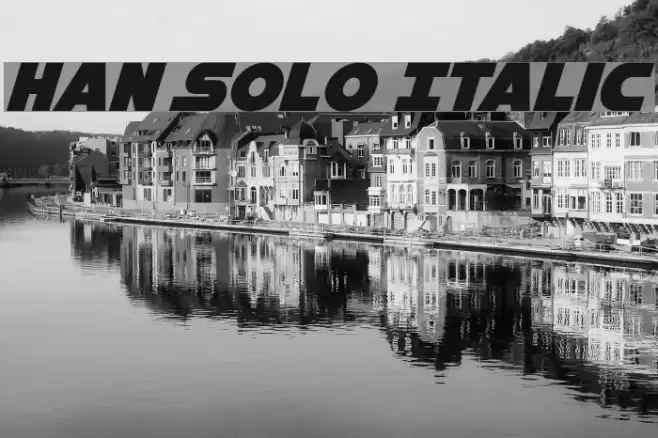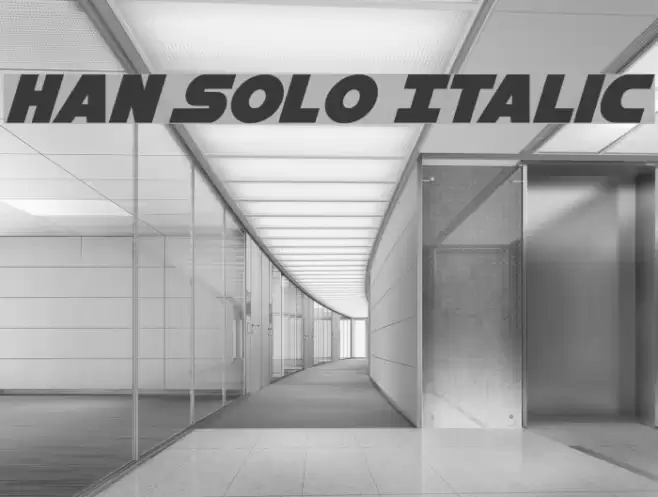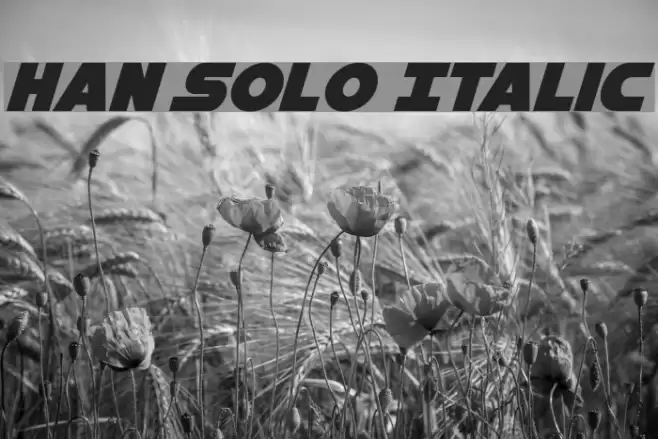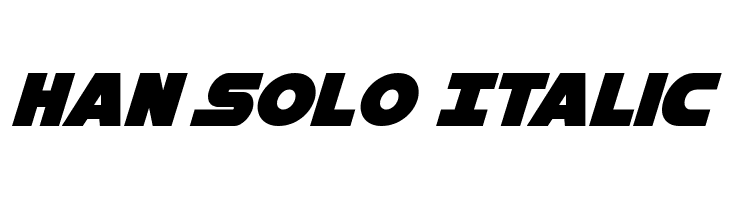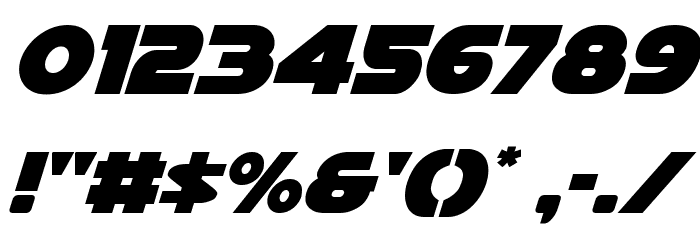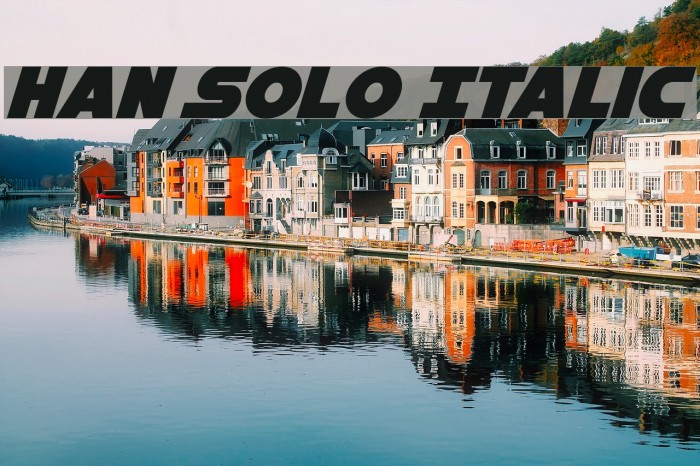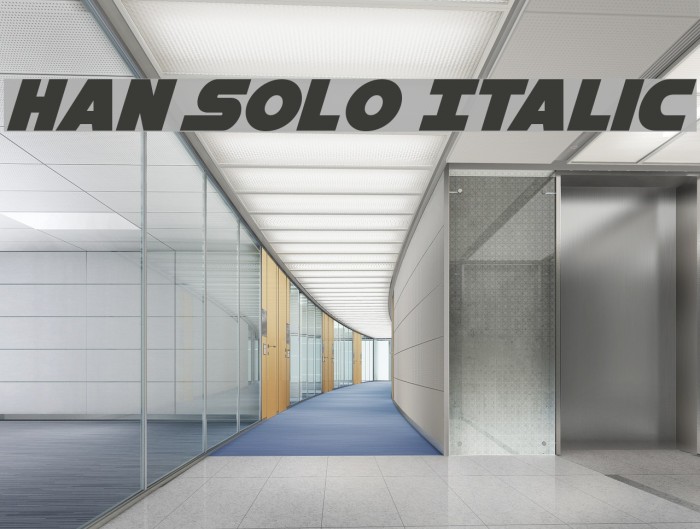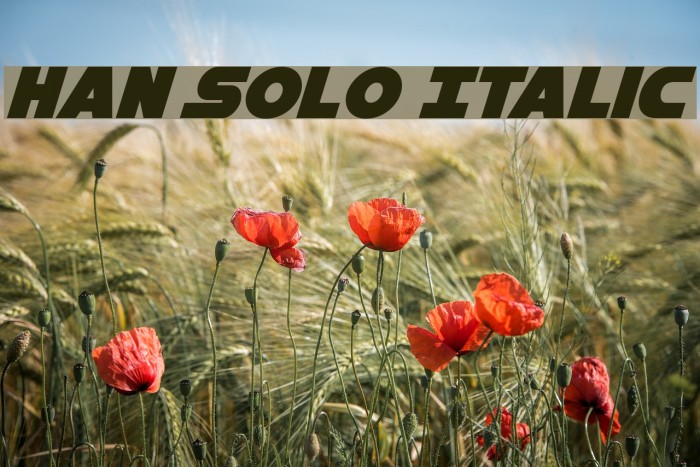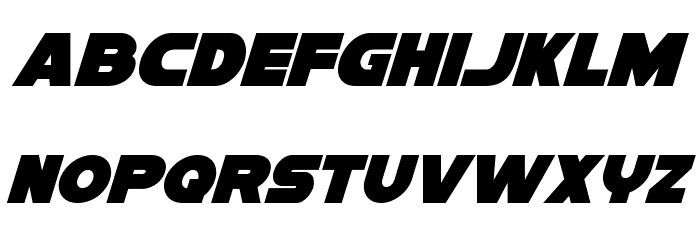
Han Solo Italic Font
Han Solo Italic Description
This font features a bold and dynamic style with a distinct italic slant, giving it a sense of motion and energy. The characters are wide and robust, with a strong presence that makes them stand out. The uppercase letters are particularly striking, with angular cuts and sharp edges that add to the font's boldness. The numbers and special characters maintain this bold aesthetic, ensuring consistency across all glyphs. The font's design is modern and futuristic, making it suitable for projects that require a strong, impactful visual statement.
A bold, italic font with a dynamic and modern style from Uncategorized fonts.
- Proposed Projects: Ideal for branding, posters, headlines, and any design needing a bold, modern touch.
- Width: Expanded